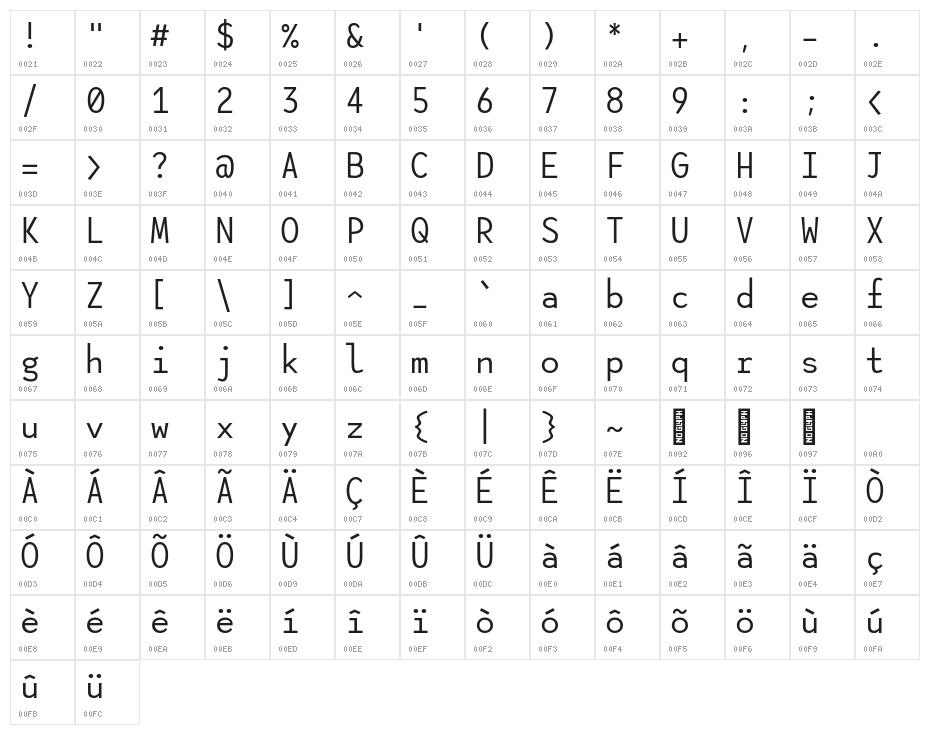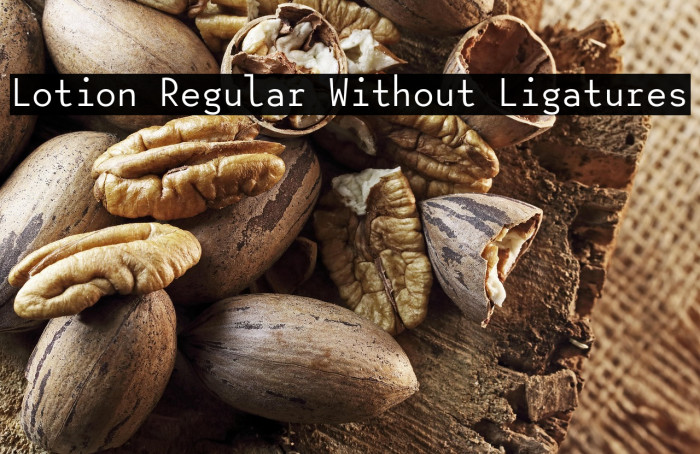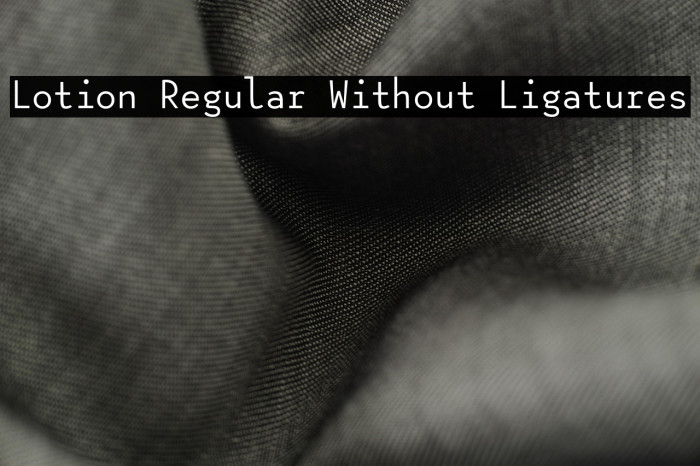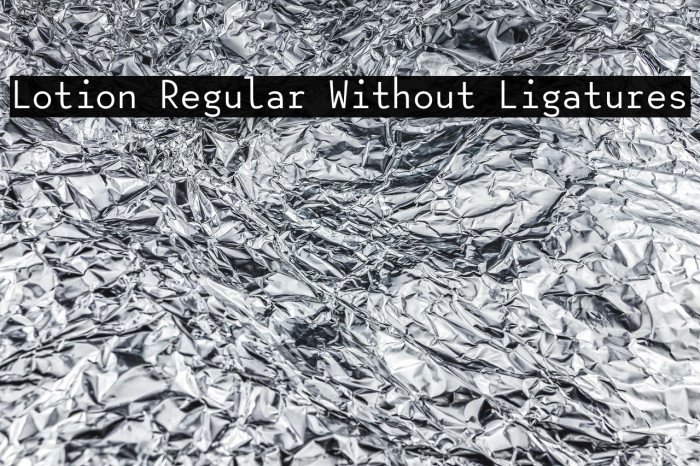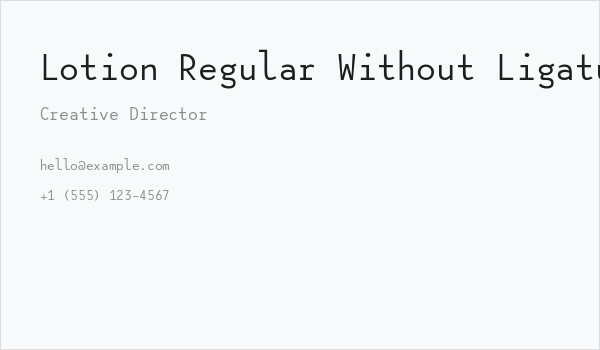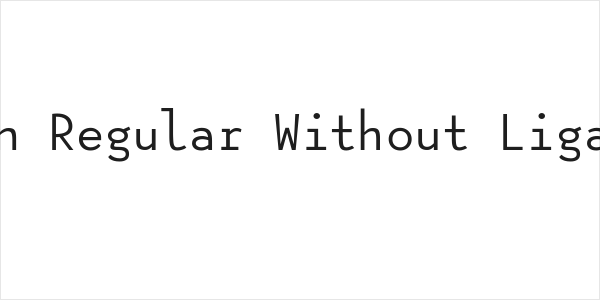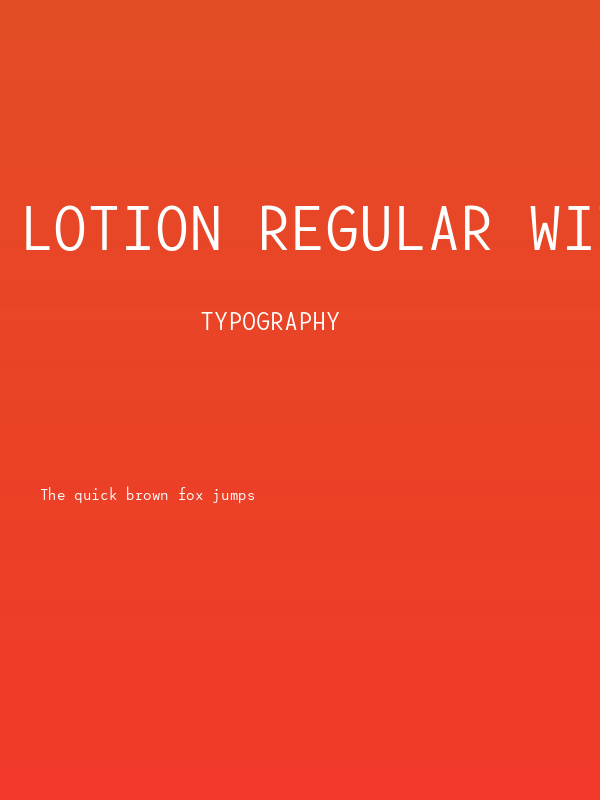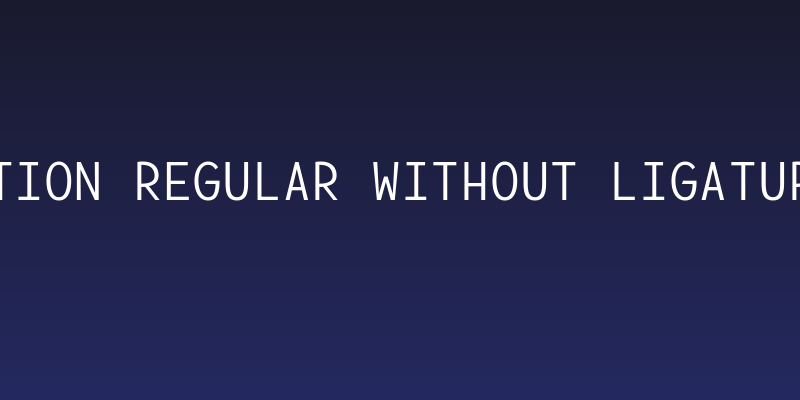
Lotion Regular Without Ligatures Font
Lotion Regular Without Ligatures Description
This font features a clean and modern sans-serif style with a geometric influence. The characters are evenly spaced, providing a balanced and harmonious appearance. The uppercase letters are bold and assertive, while the lowercase letters maintain a consistent and approachable look. The numerals are clear and legible, making them suitable for various applications. Special characters are well-defined, adding versatility to the font's use. The overall design is straightforward yet sophisticated, making it ideal for both digital and print media.
| Proposed Projects | Ideal for branding, web design, editorial layouts, and signage due to its clarity and modern appeal. |